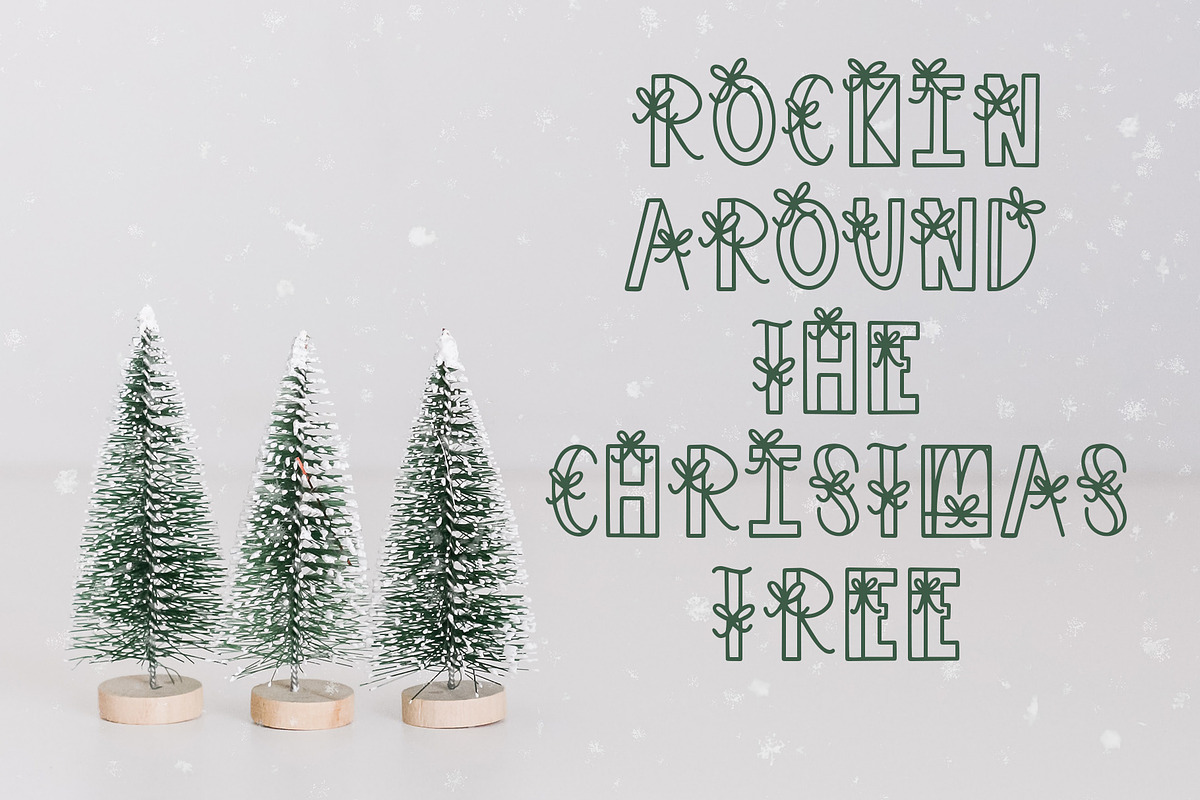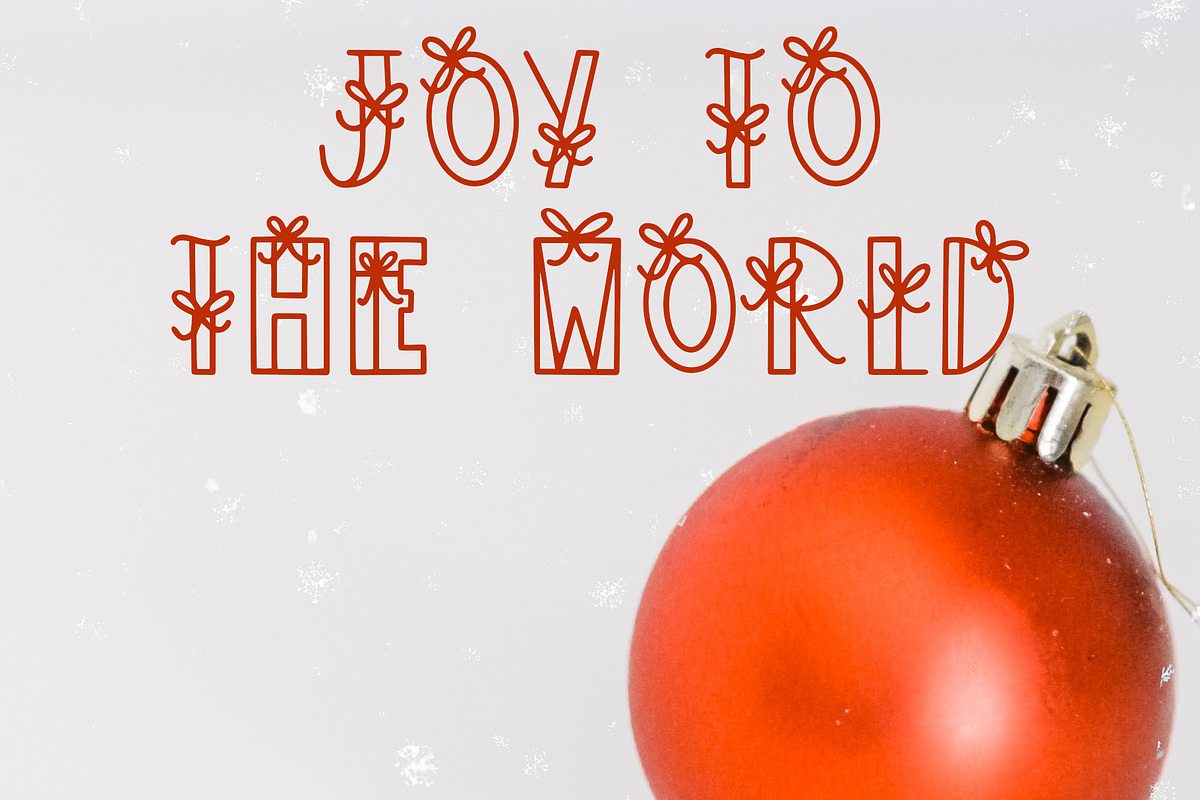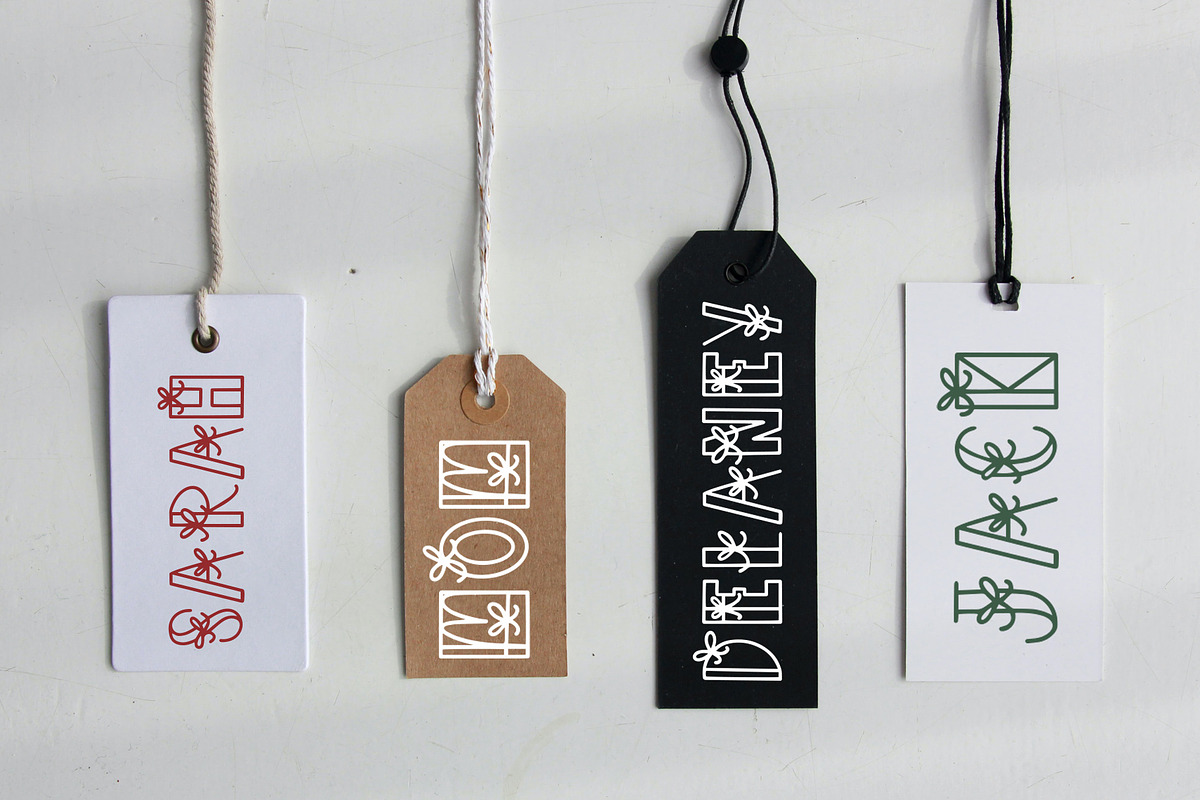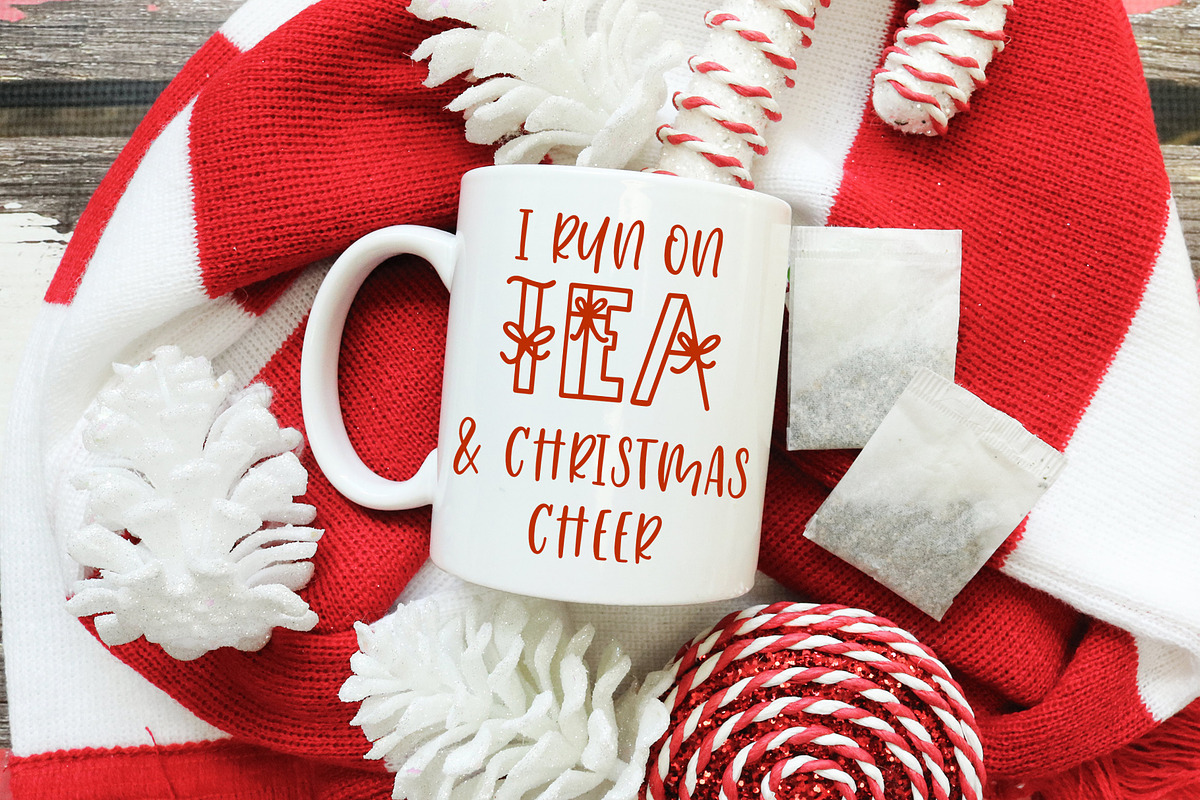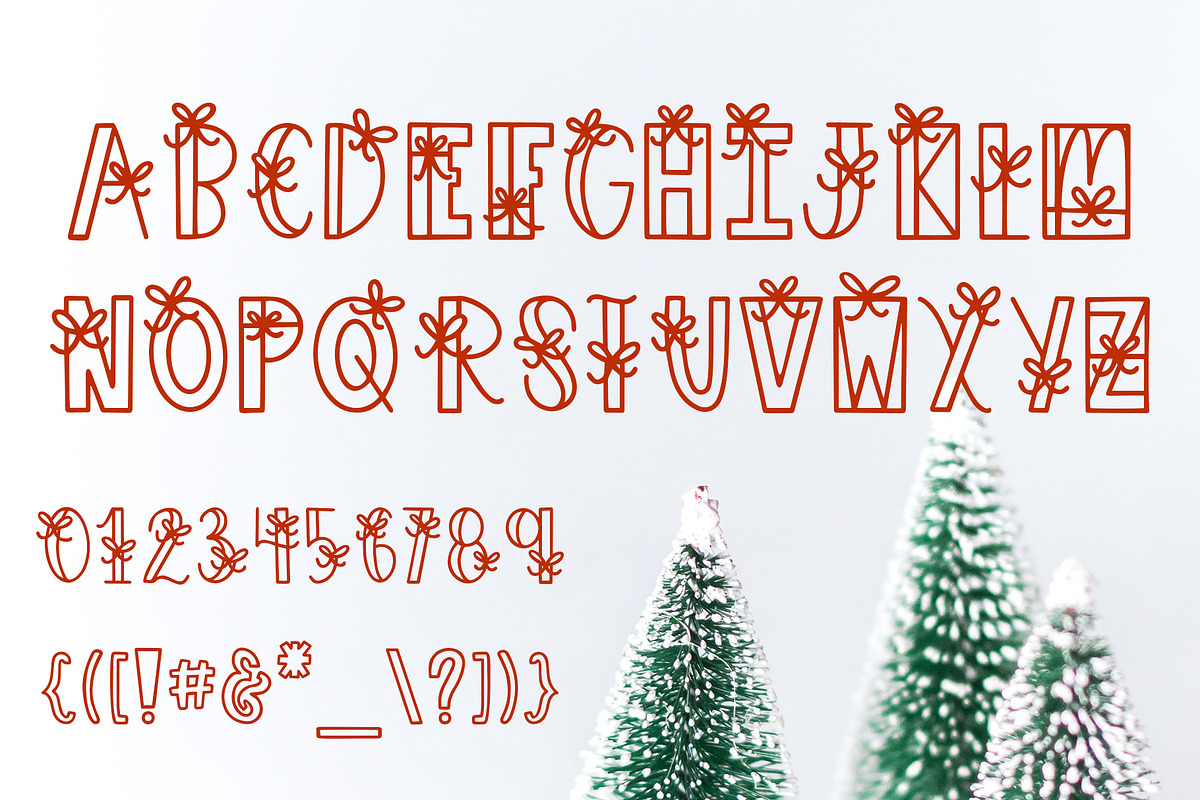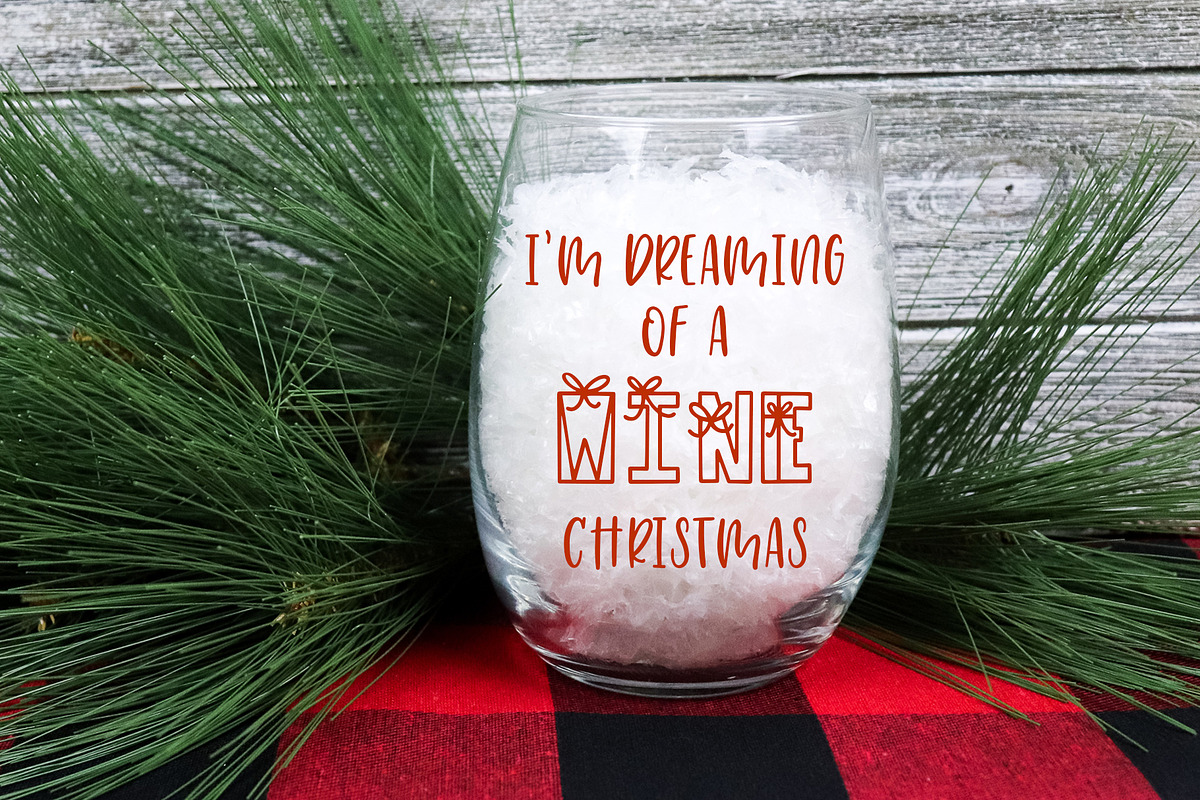
Under The Tree, Christmas Font
Introducing Under The Tree, a fun Christmas Presents font.
Under the Tree Font Features:
0-9 and some punctuation
- Letters A-Z
- 0-9 and some punctuation
- Under the Tree Regular